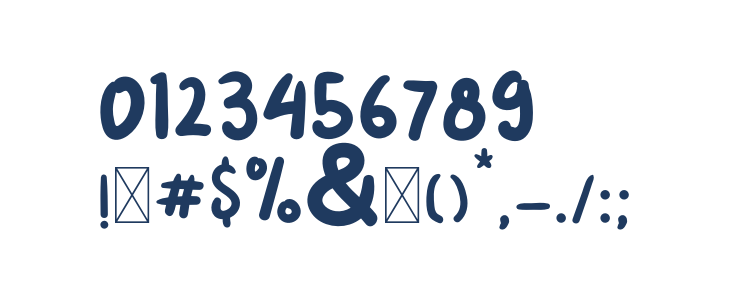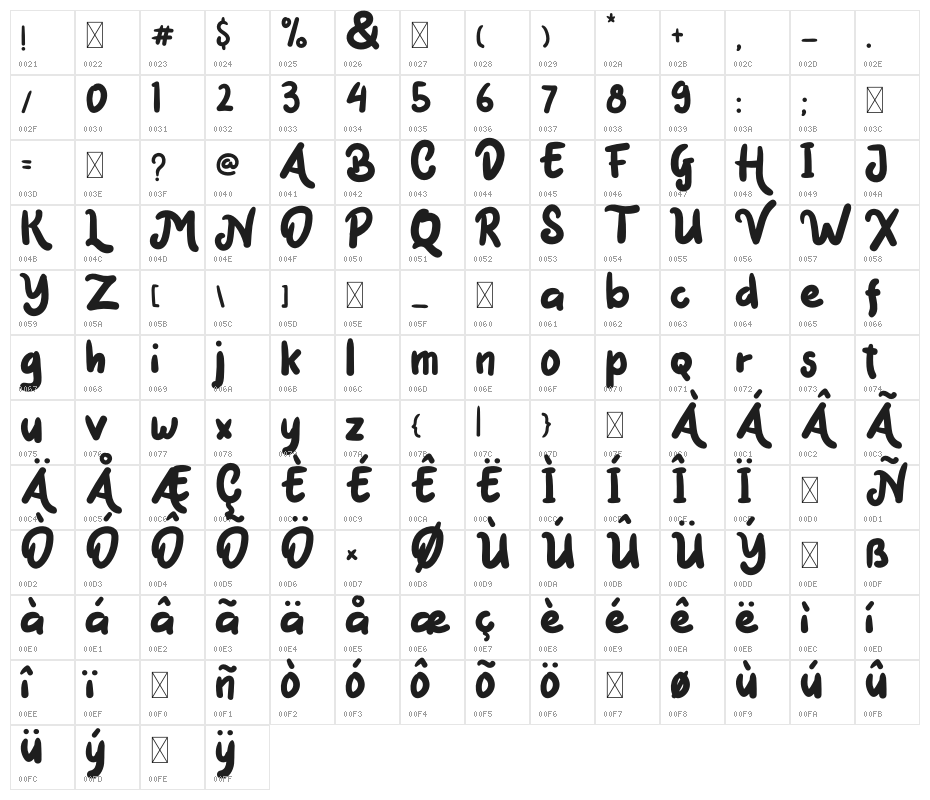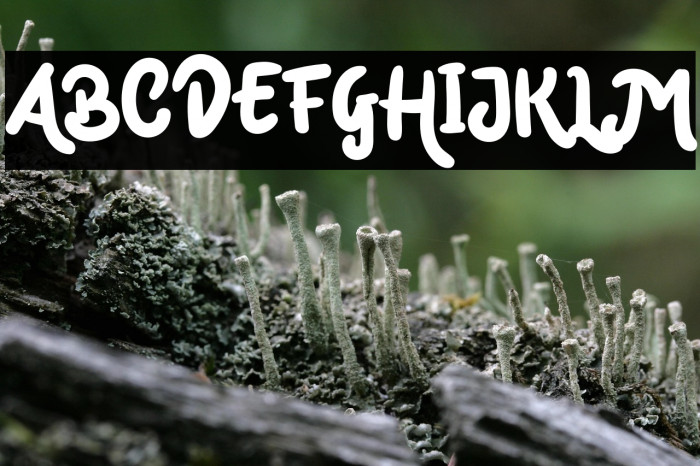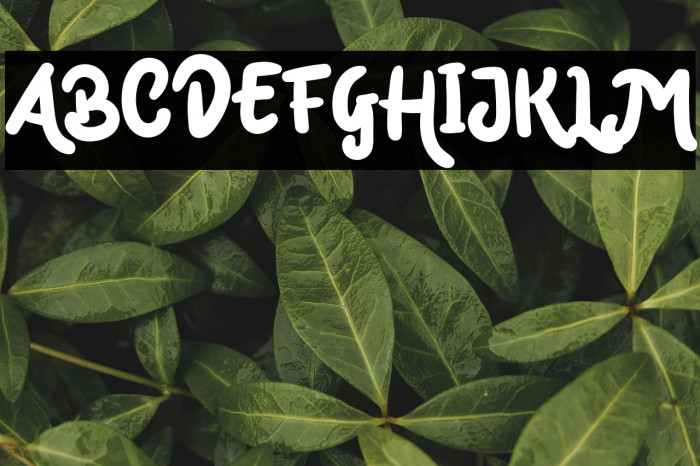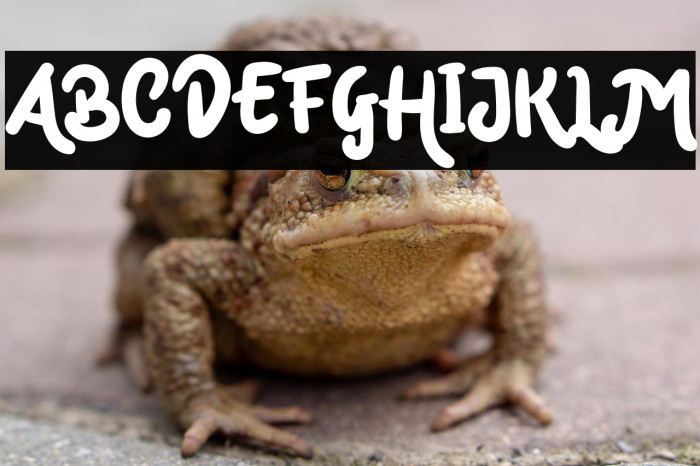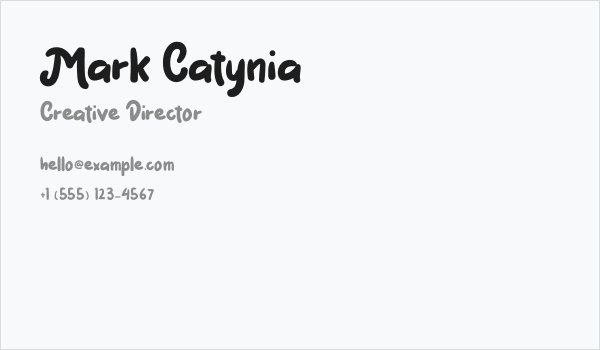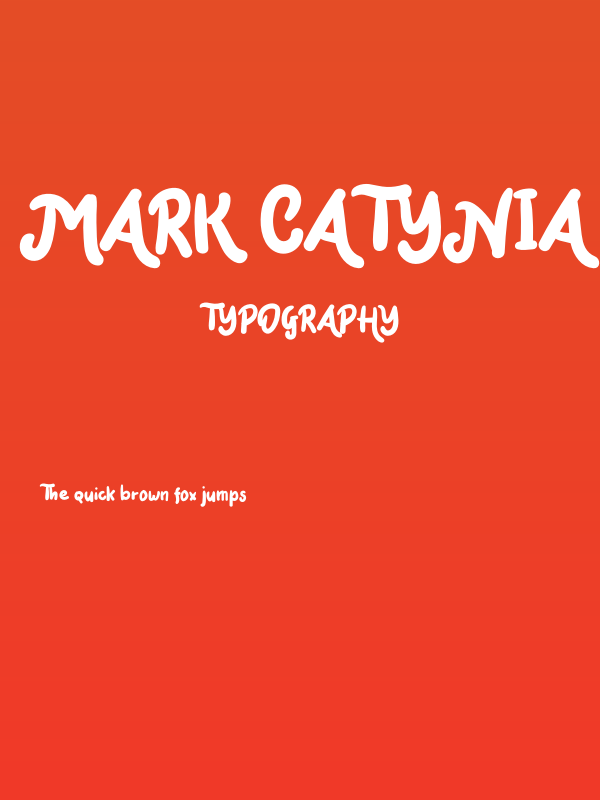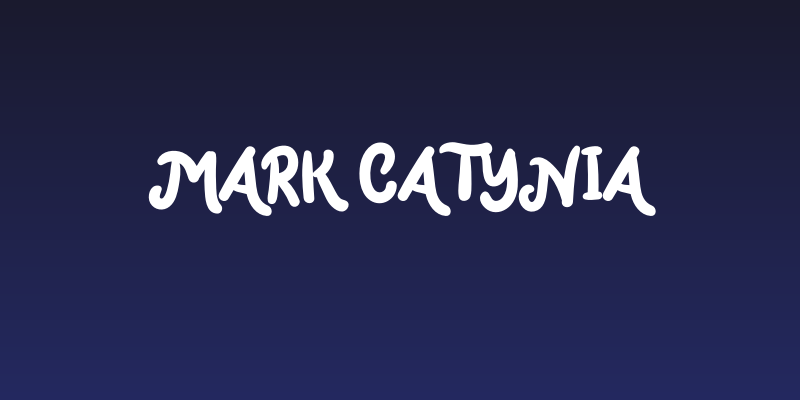
Mark Catynia Font
Mark Catynia Description
This font features a playful and bold design with a handwritten style. The characters are rounded and slightly irregular, giving it a casual and friendly appearance. The uppercase and lowercase letters maintain a consistent thickness, contributing to a cohesive look. The numbers and special characters follow the same playful style, making them easily recognizable. The overall design is suitable for projects that require a fun and approachable aesthetic.
| Proposed Projects | Ideal for children's books, playful branding, casual invitations, and creative posters. |